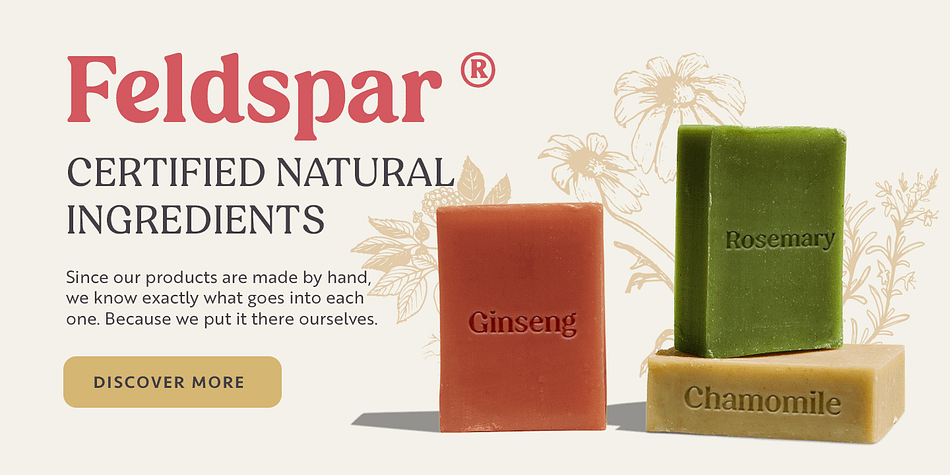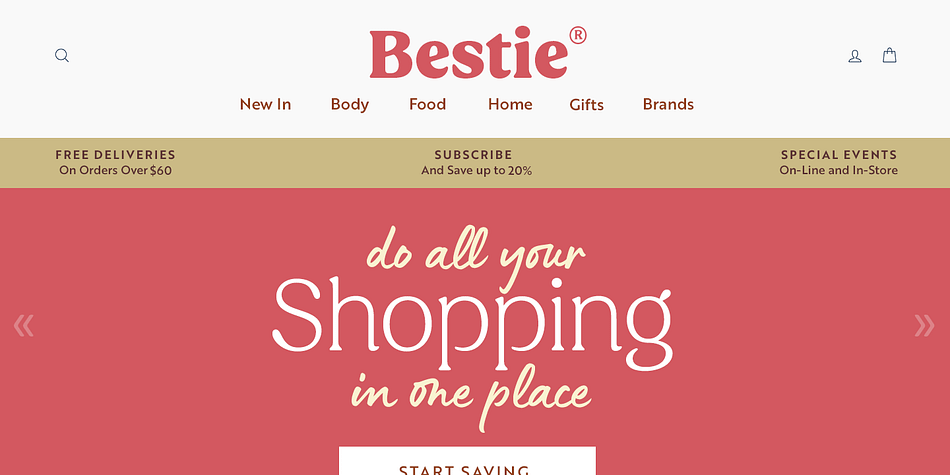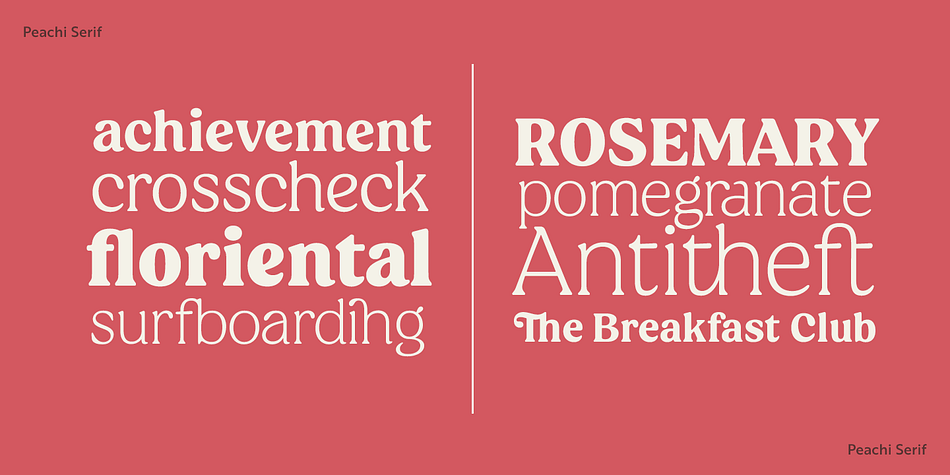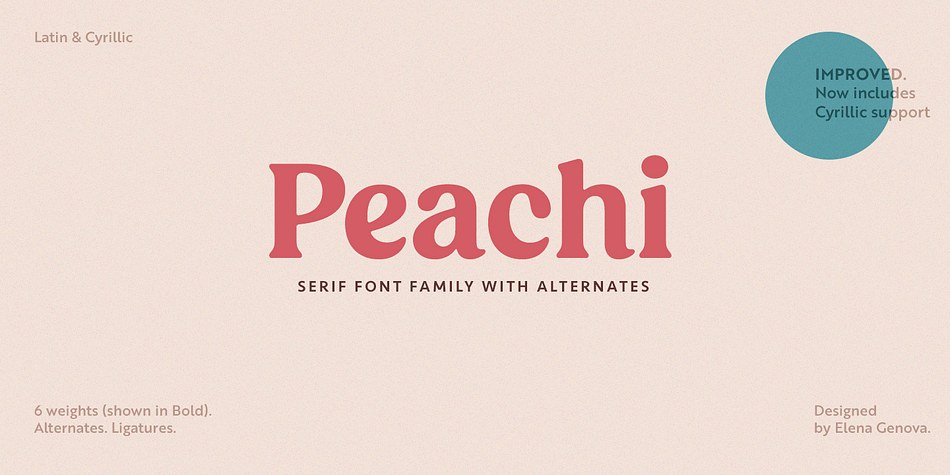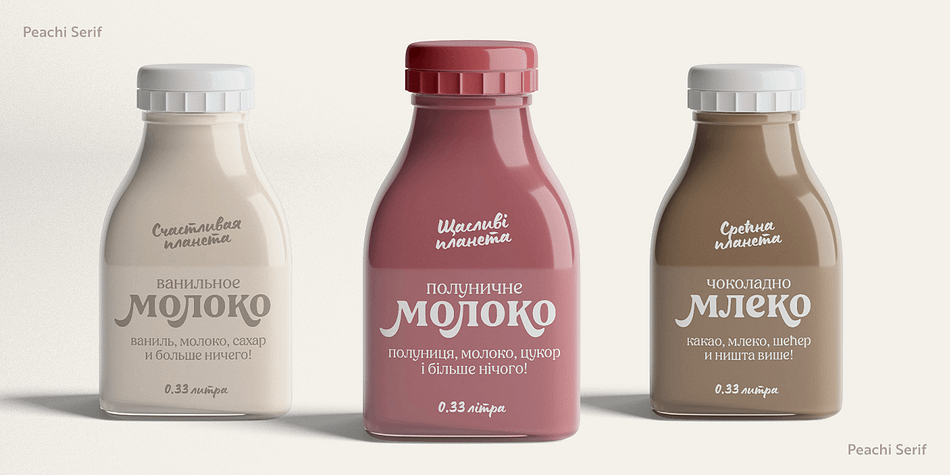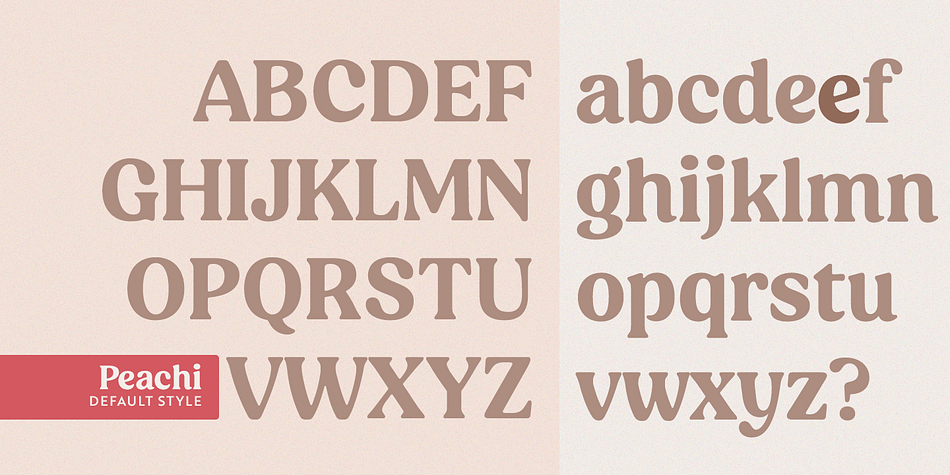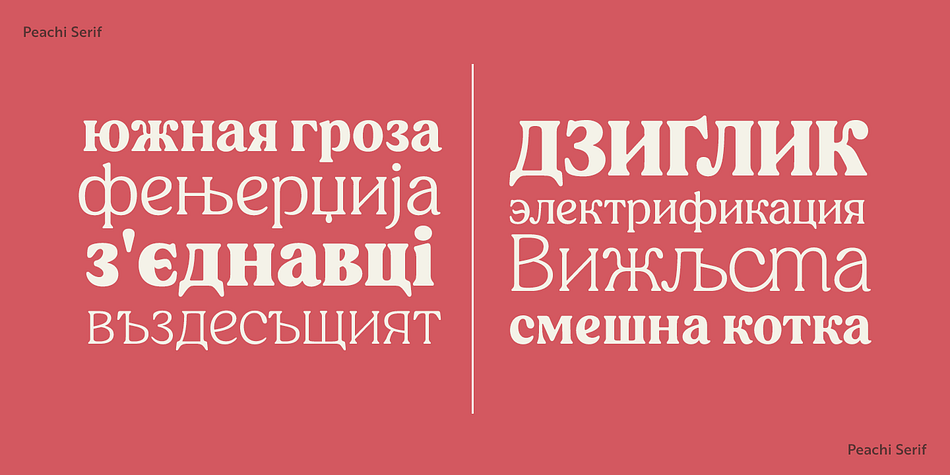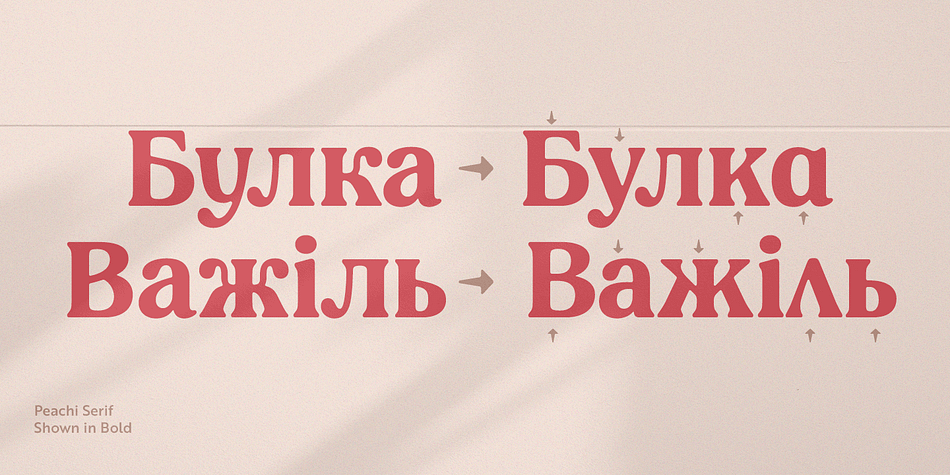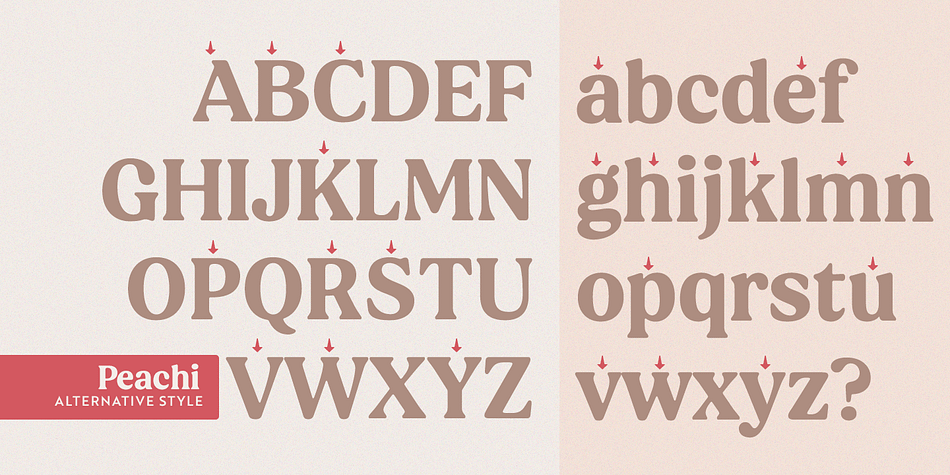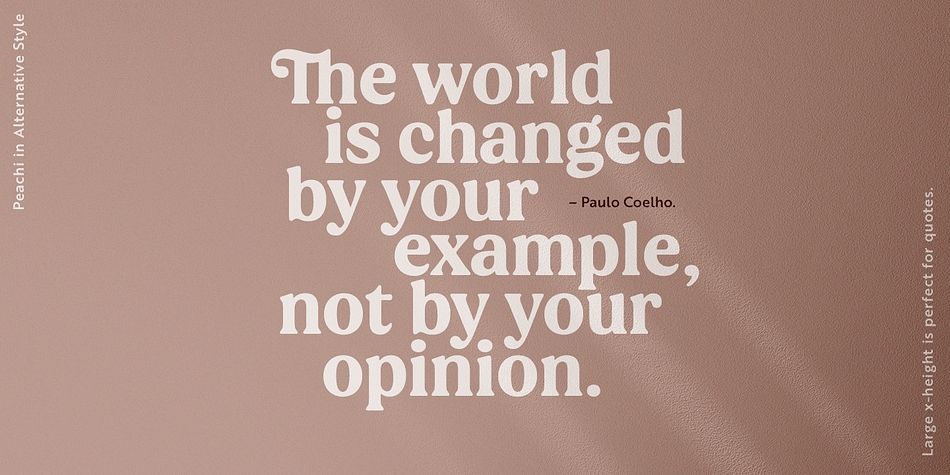
Designed by Elena Genova, Peachi is a display serif, retro and serif font family. This typeface has six styles and was published by My Creative Land.
Peachi is a serif typeface loosely based on Morris Fuller Benton’s Souvenir forms and some other serif fonts designed in the early 1900s. It has a soft look - round corners, slightly curved legs of capital K, R, V and W; and lowercase k, v, w and y. Rather heavy ball terminals and a very large x-heigh make Peachi a perfect choice for designing titles, book covers; for branding, quotes design - basically any design that needs to make an impact and to be remembered.
Peachi is released in 6 weights from Thin to Black and has stylistic alternates that make it even more versatile. While the default style follows Souvenir’s trend, the alternative style looks more modern. It’s totally up to you which style to choose for your design.